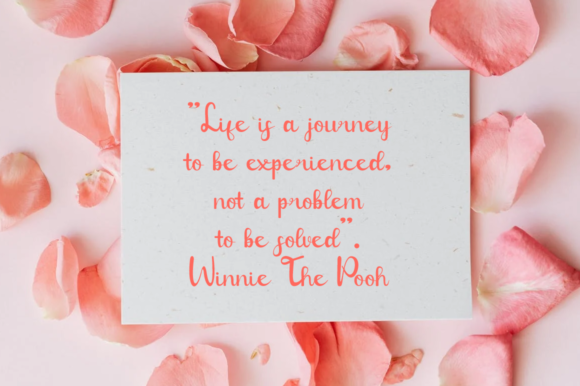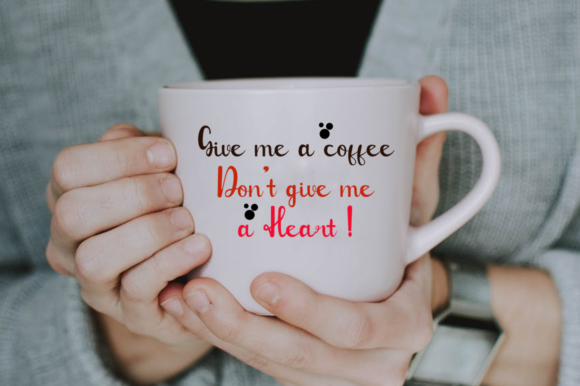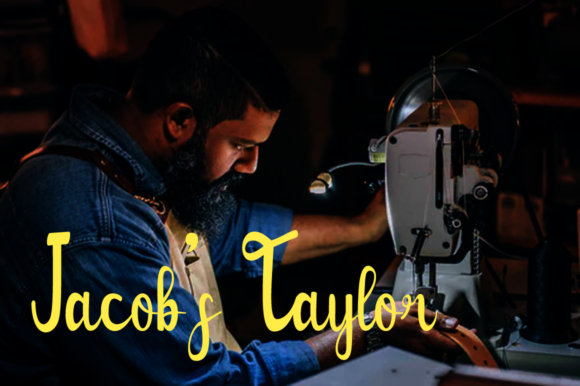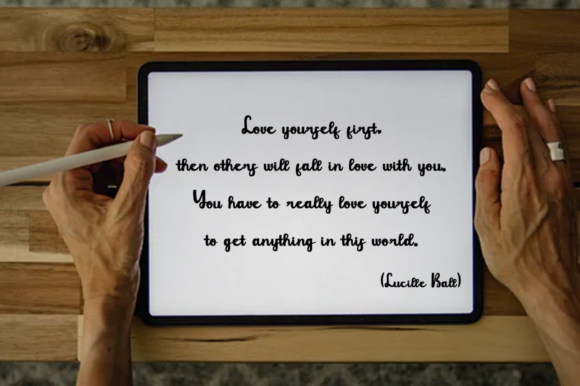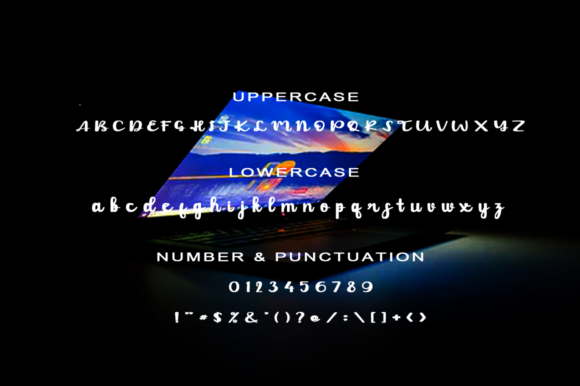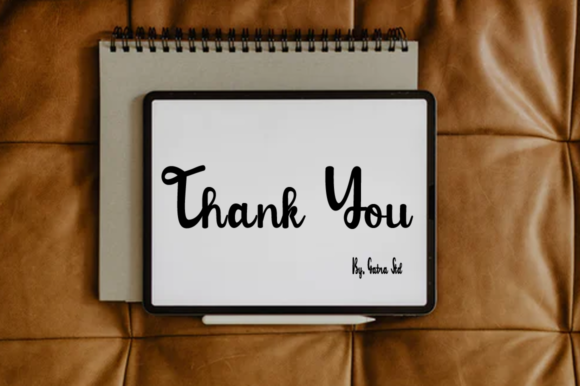
Introducing Bollywood Font: The Ultimate Handwritten Font for Creative Projects
Are you a designer, crafter, or DIY enthusiast looking for a font that can add a touch of warmth and personality to your projects? Look no further than the Bollywood Font! This sweet, all-round, and flexible handwritten font is perfect for anyone who wants to create beautiful and unique designs that stand out from the crowd.
What Makes Bollywood Font So Special?
Bollywood Font is a carefully crafted handwritten font that exudes warmth, romance, and joy. Its flexible and versatile design makes it suitable for a wide range of projects, from creative crafts and DIY tutorials to digital designs and marketing materials. Whether you’re creating invitations, greeting cards, posters, or social media graphics, Bollywood Font is sure to turn your project ideas into real works of art.
Key Features of Bollywood Font
- Handwritten with love: Bollywood Font is a genuine handwritten font, created with love and care to give your projects a personal touch.
- Warm and romantic: The font’s warm and romantic style makes it perfect for projects that require a touch of elegance and sophistication.
- Flexible and versatile: Bollywood Font can be used for a wide range of projects, from formal to informal, and can be paired with various design elements to create unique and eye-catching designs.
- Endless variations: With Bollywood Font, you can experiment with different styles, colors, and textures to create endless variations of your designs.
How to Use Bollywood Font in Your Projects
Using Bollywood Font in your projects is easy and fun! Here are some ideas to get you started:
- Create beautiful invitations: Use Bollywood Font to create stunning invitations for weddings, birthday parties, and other special occasions.
- Design romantic greeting cards: Add a touch of romance to your greeting cards with Bollywood Font, perfect for Valentine’s Day, anniversaries, and more.
- Make eye-catching posters: Use Bollywood Font to create bold and eye-catching posters for events, promotions, and marketing campaigns.
- Enhance your digital designs: Add a personal touch to your digital designs, such as social media graphics, blog posts, and email newsletters, with Bollywood Font.
Tips and Tricks for Getting the Most Out of Bollywood Font
To get the most out of Bollywood Font, here are some tips and tricks to keep in mind:
- Experiment with colors: Try pairing Bollywood Font with different colors and textures to create unique and eye-catching designs.
- Play with font sizes: Experiment with different font sizes to create visual interest and hierarchy in your designs.
- Mix and match with other fonts: Combine Bollywood Font with other fonts to create interesting and dynamic typography.
- Have fun: Most importantly, have fun and be creative with Bollywood Font!
In conclusion, Bollywood Font is a beautiful and versatile handwritten font that can add a touch of warmth and personality to your projects. With its flexible design, endless variations, and ease of use, it’s perfect for designers, crafters, and DIY enthusiasts who want to create stunning and unique designs. So why wait? Get creative with Bollywood Font today and turn your project ideas into real works of art!